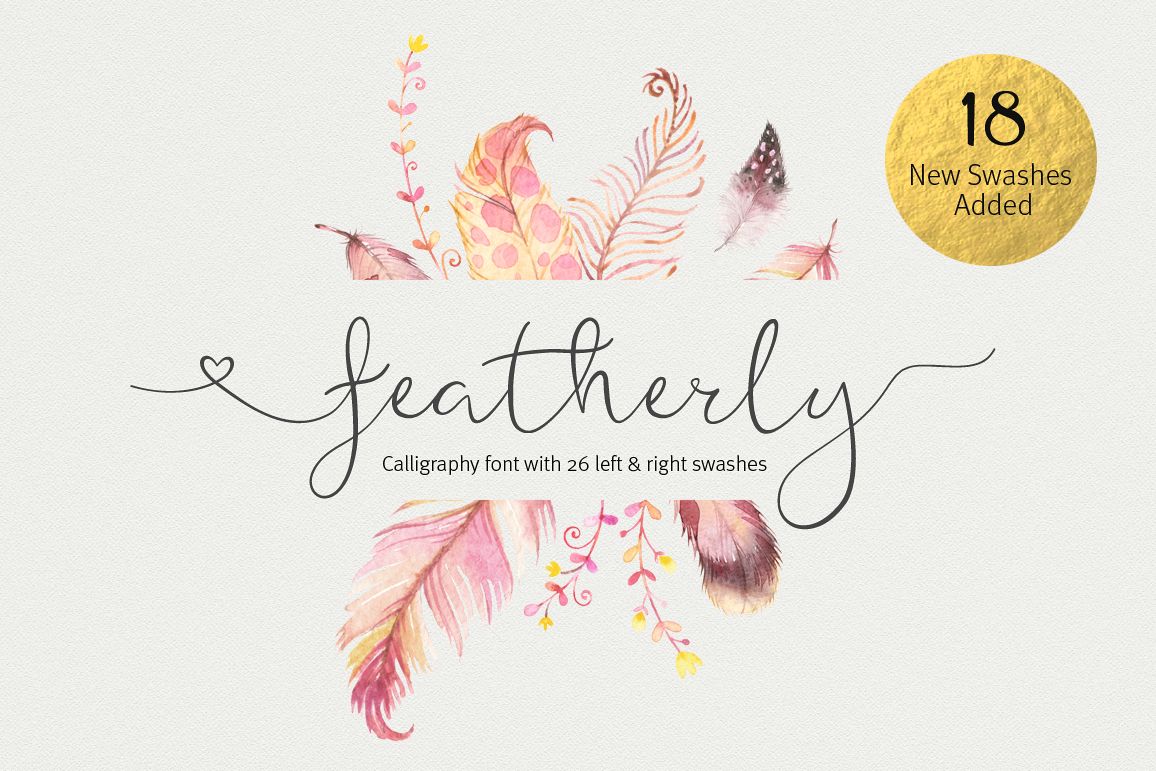
Featherly Font - wedding font
A beautiful modern calligraphy font for all you swash lovers!
Includes 26 swashes and alternate characters.
The elegance of this font makes it great for use with fills such as gold, watercolor, glitter, etc. featherly is a hand drawn, elegant, modern calligraphic font perfect for wedding design projects, invitations, greeting cards, signatures, watermarks, logos, handwriting and more.The font includes some foreign language glyphs so please do take a look at the other screenshots to see what's included in this font and what you can do with it.